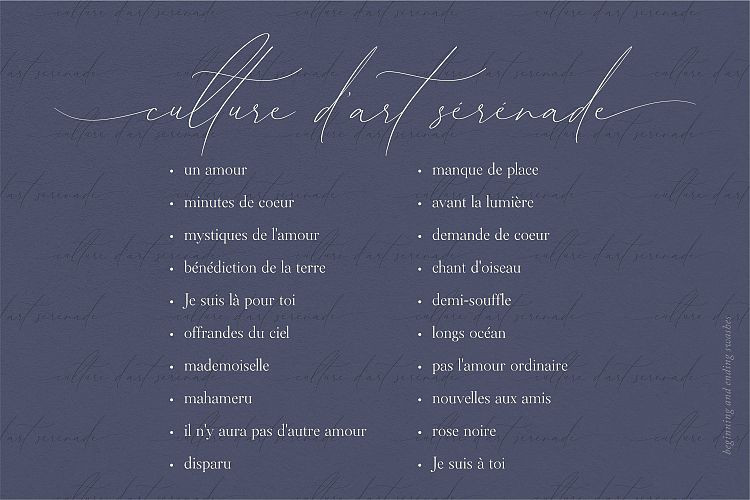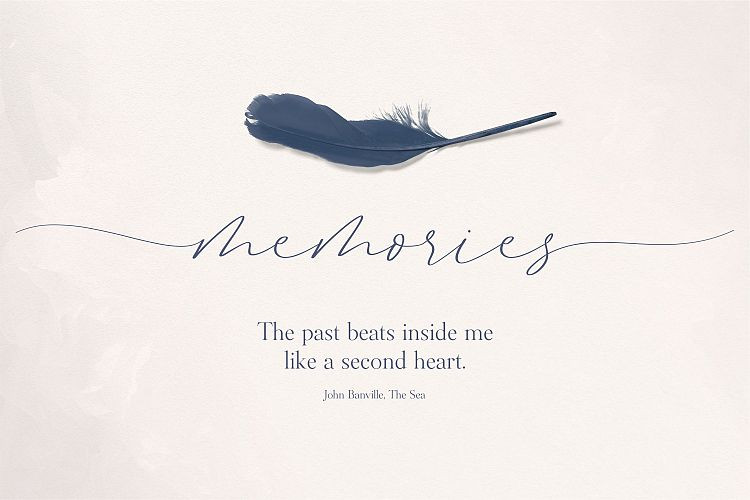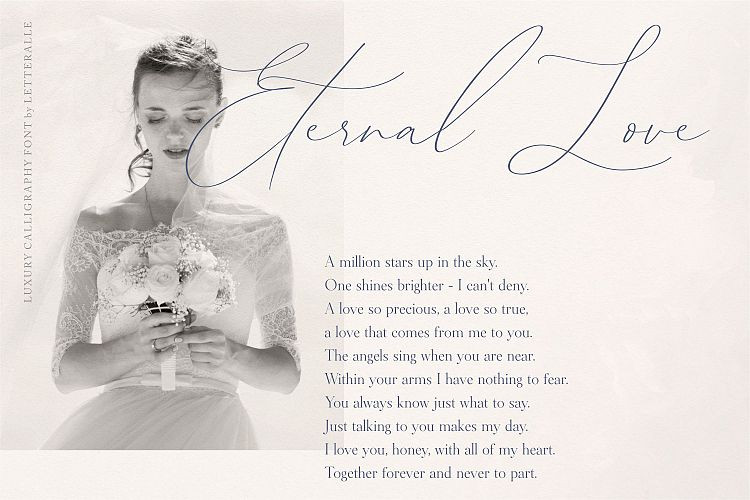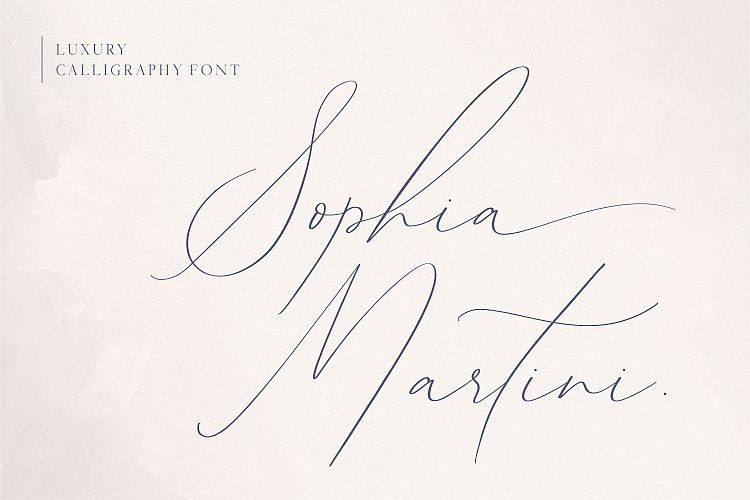
Sophia Martini Handwritten Font
Dear Font Lovers! If you are looking for a handwritten font then this is it. Get inspired by its unique look, and turn any design idea into a true standout! Introducing Sophia Martini Font. With what is owned, It’s perfect for wedding invitations, fashion, book titles, stationary, or other projects that require luxurious touch.
Sophia Martini is equipped with beginning and ending swashes.
To access the beginning or end of the swipe only the “-” hypen symbol at the beginning or the end of the word.